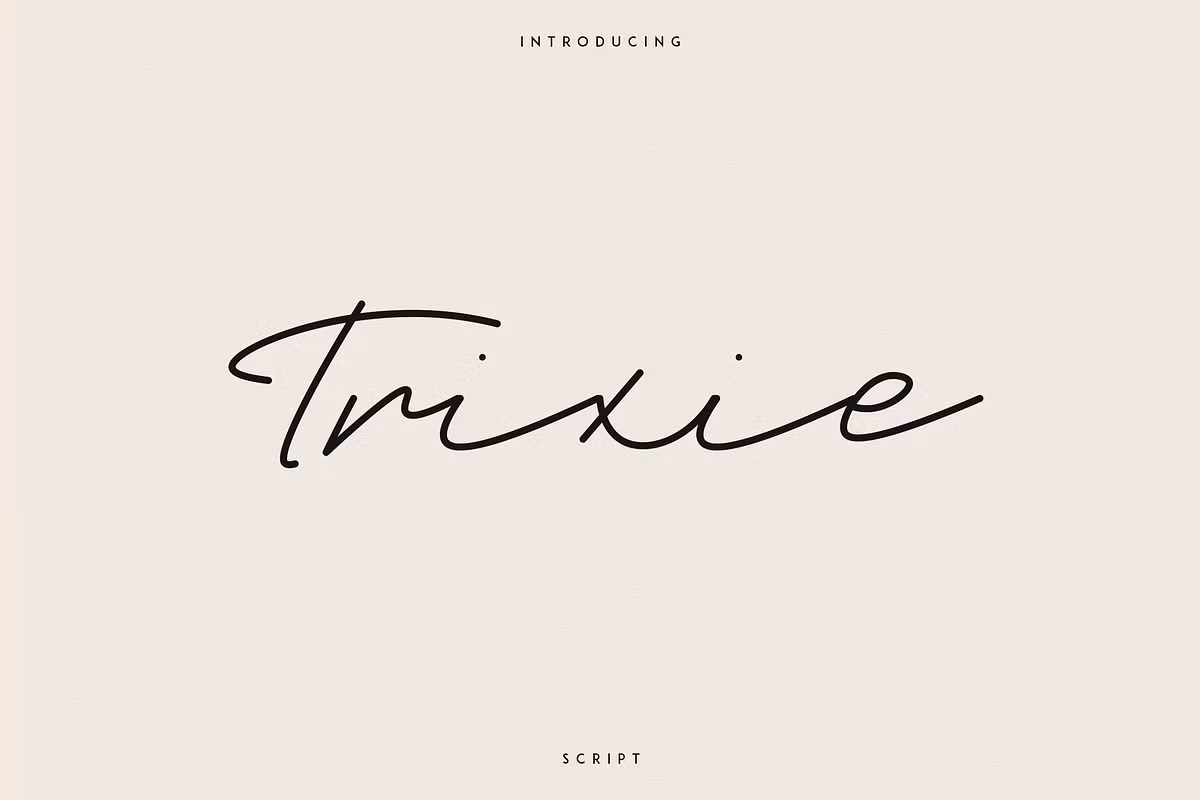
Trixie Script - 3 Weights Free Download
Please note, to use this font for commercial purposes, you must purchase the full version. Trixie Script is a versatile and elegant script font available in three weights, giving you flexibility and style for a variety of projects. Whether you're designing logos, invitations, branding, or promotional materials, this font adds a sophisticated and playful touch to your work. With its smooth, flowing strokes and distinct character, Trixie Script is perfect for both modern and classic designs. Test it out and enjoy free download access for personal use. Experience the charm and versatility of Trixie Script - 3 Weights Font Free Download before purchasing the commercial license. Elevate your designs with the elegant style of Trixie Script.